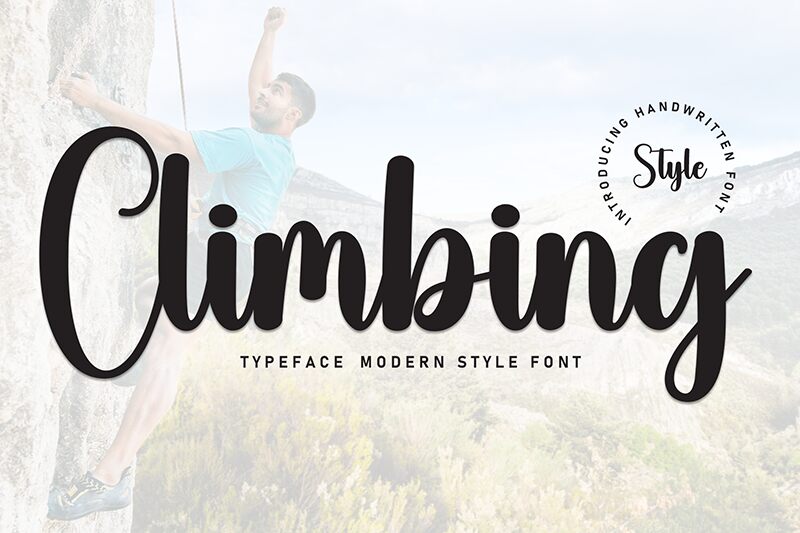
Climbing
Climbing font by Andi Moz is a handwritten masterpiece that captures the essence of classic calligraphic handwriting with its flowing lines and elegant strokes. The script font boasts a modern appeal while maintaining an overall handwritten aesthetic which adds casual elegance to each gliding form recreating natural movements on your designs.
A free handwritten font like Climbing, combines ready-to-use aesthetics in branding and packaging designs for signature cosmetics, Italian restaurant signage, or fashion magazines. Its graceful look benefits invitation and greeting card texts, online posts or headlines for blogs, Youtube channels’ thumbnails with free vibes at hand.